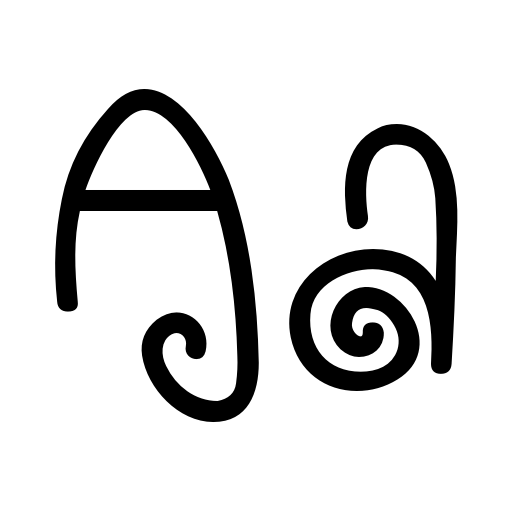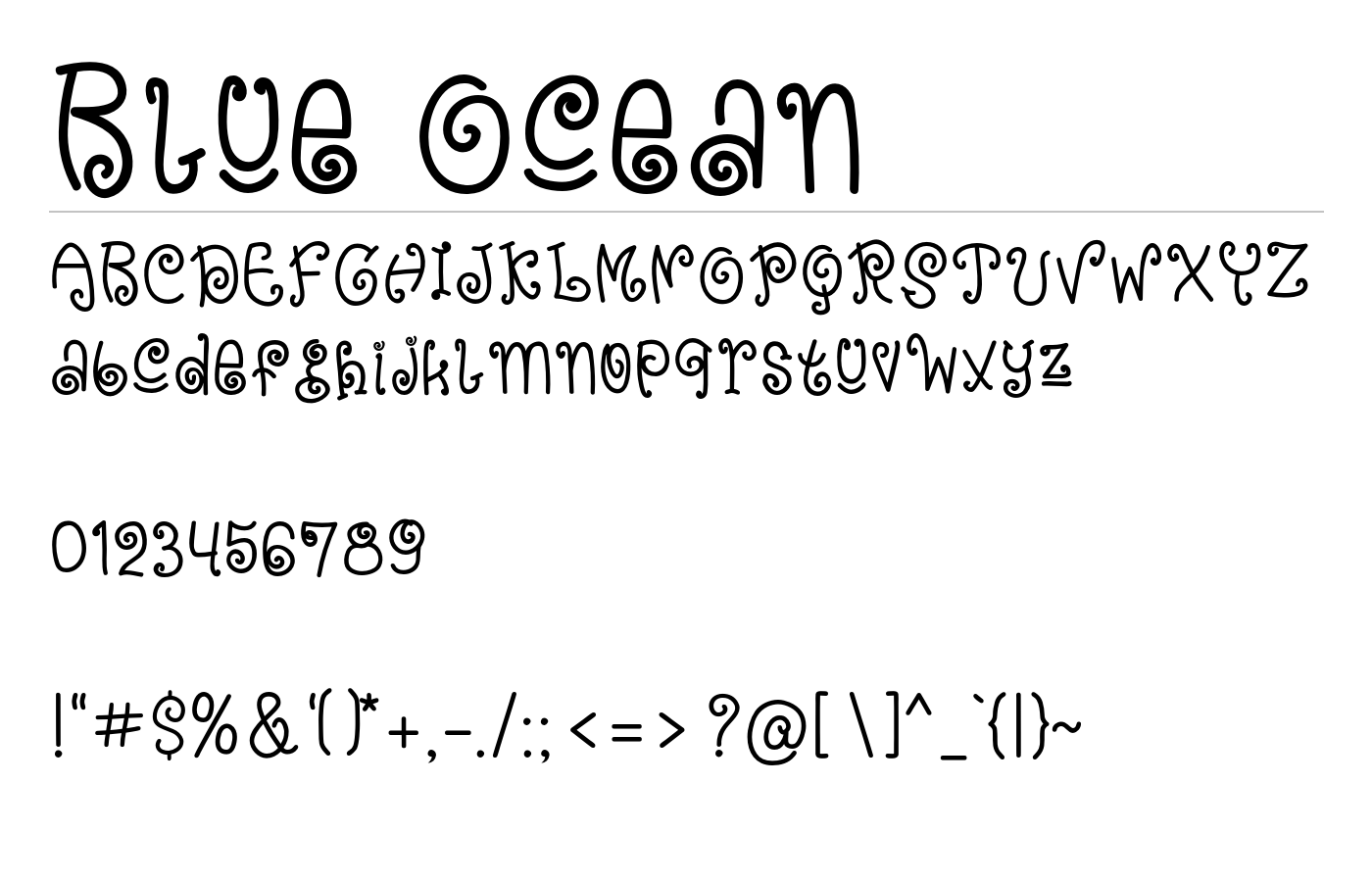
Blue Ocean Font is a playful, decorative sans serif with quirky, curly shapes that create a whimsical and fun vibe. Its unique, irregular letterforms and spiraled details make it ideal for creative projects, children's books, or branding that seeks a lighthearted, imaginative feel. This font works best in headlines or logos where personality and charm are key.
Blue Ocean Font
About Blue Ocean Font
| Font family | Blue Ocean Font |
| Designer | Joz Gandoz |